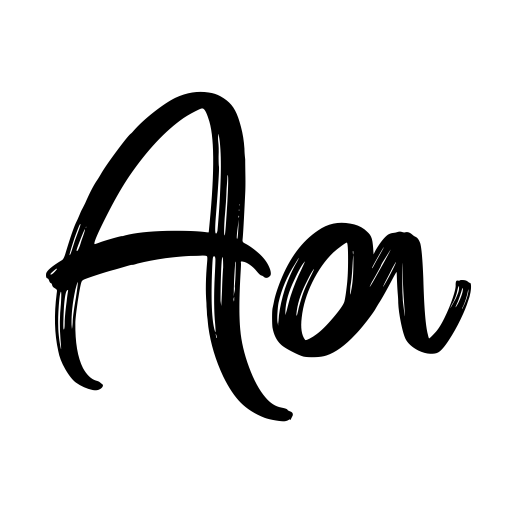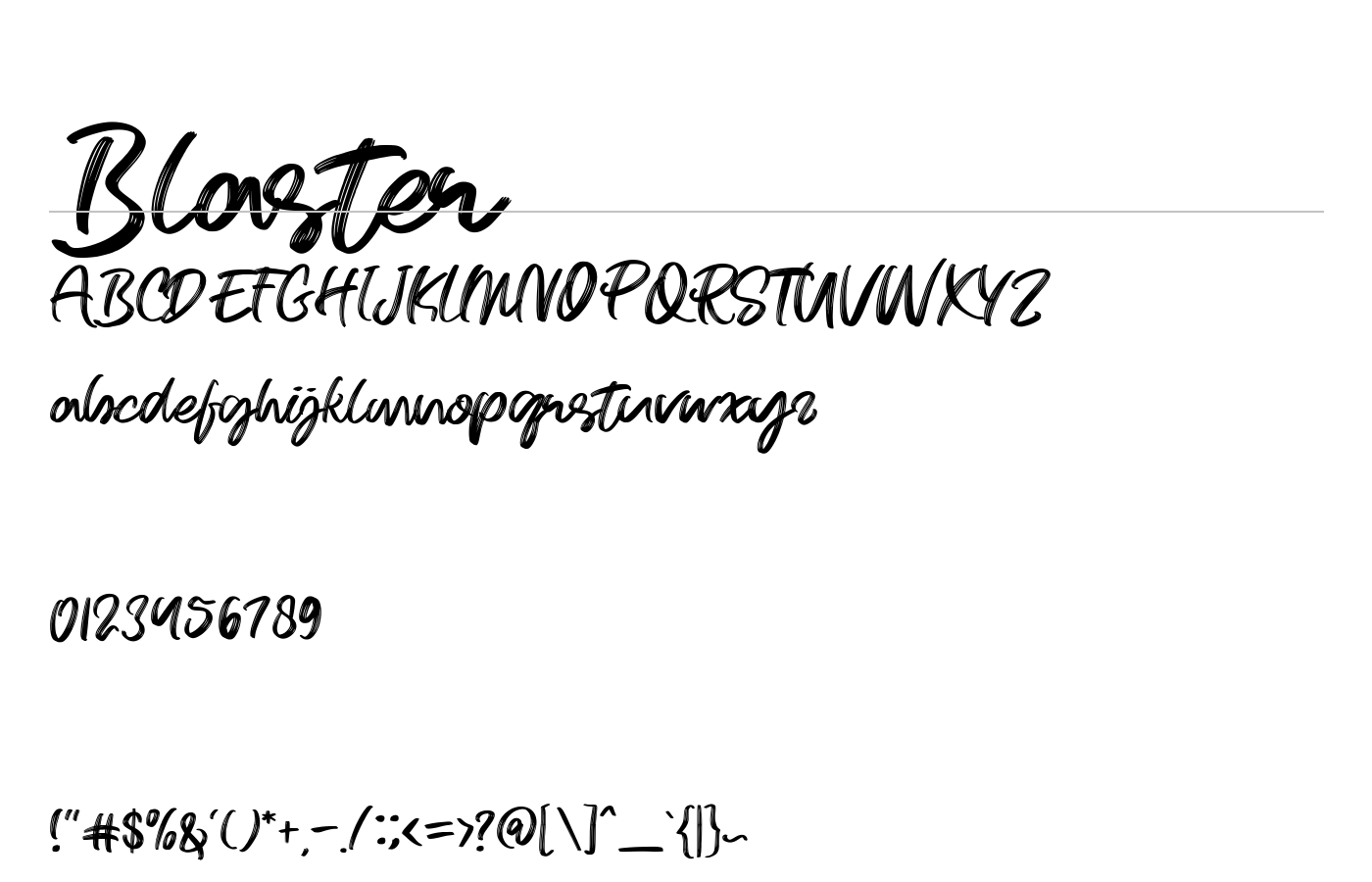
Blaster Font is a lively and expressive script typeface with a bold, hand-painted feel that adds a personal and artistic touch to any design. Its medium weight, varying stroke widths, and natural flow make it ideal for creating eye-catching headlines, logos, and packaging that require a dynamic and creative personality. Perfect for branding and projects that want to convey energy, individuality, and a modern handcrafted vibe.
Blaster Font
About Blaster Font
| Font family | Blaster Font |
| Designer | Burhan Afif |